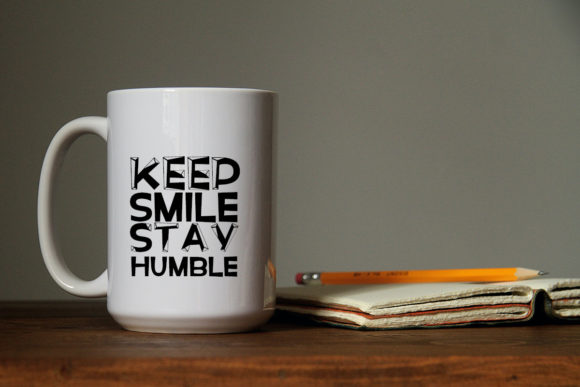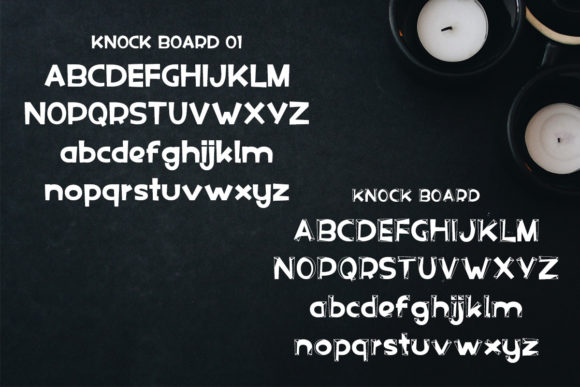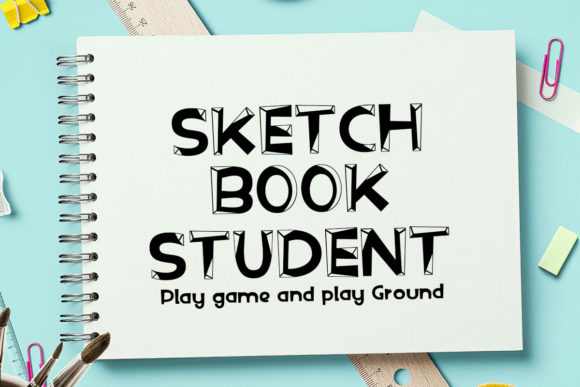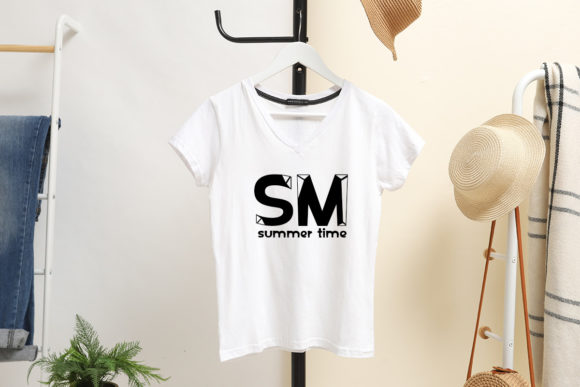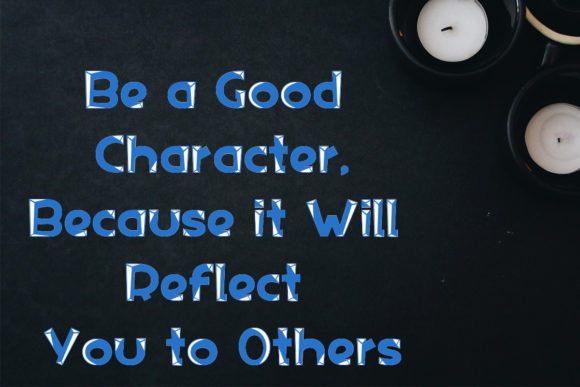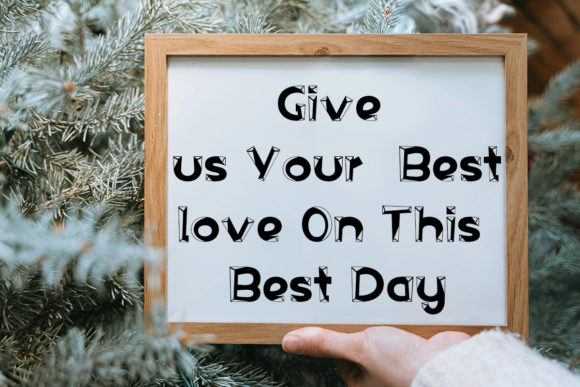
Introduction to Knock Board Font
Remember the rush of excitement you get when you stumble upon a game-changing design resource that elevates your creative project to the next level? For designers and artists, finding the perfect font can be a game-changer. Recently, I discovered the Knock Board Font, and I’m still blown away by its unique features.
What sets the Knock Board Font apart is its ability to be used on a transparent background, making it a high-quality design resource for any creative project. With its sleek and modern aesthetic, this font is perfect for video game titles, comic book covers, and even movie posters. Whether you’re working on a professional project or a personal passion project, the Knock Board Font is sure to make a statement.
Key Features of Knock Board Font
- High-quality design resource with a unique, distressed aesthetic.
- Transparent background, allowing for seamless integration into creative projects.
- Includes a comprehensive character set, including uppercase and lowercase letters, numbers, and punctuation.
- Perfect for use in creative projects, such as graphic design, digital art, and typography-based designs.
Honest Review: Knock Board Font
I recently had the chance to try out the Knock Board Font for a creative project, and I must say it’s a great addition to any design resource. The font has a unique and quirky feel that’s perfect for projects where you want to add some visual interest.
Here are some things that work well with the Knock Board Font: ✨
- High-quality design: The font is well-crafted and looks great on any background.
- Transparency option: The transparent background option is a great feature for designers who want to add the font to a custom background.
- Limited font styles: The font only comes in a few styles, which may limit its versatility for certain projects.
- No bold or italic options: The font doesn’t offer bold or italic options, which may not be suitable for certain design applications.
Overall, I’m impressed with the Knock Board Font. It’s a great addition to any design resource, and its unique feel makes it perfect for creative projects. With a few minor limitations, I would definitely recommend this font to designers looking for a high-quality, free download.
Tips for Getting the Most Out of Knock Board Font
For getting the most out of Knock Board Font, consider using it for creative projects that require a unique and high quality design. You can also experiment with different font sizes and colors to achieve the desired effect.
Knock Board Font is commonly used for creating posters, flyers, social media graphics, presentations, and documents. Its high quality and transparent background make it an ideal choice for designers who want to create visually appealing designs.